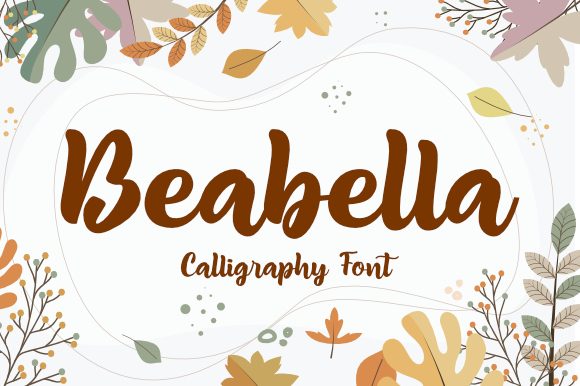
Beabella: A Handwritten Script Font for Web Designers
Introducing Beabella for Digital Projects
As a web designer constantly curating fonts for digital interfaces, finding the right script handwritten font can be transformative. Beabella presents itself as a sweet, all-round, and flexible option that brings a warm, romantic, and jolly personality directly into your layouts. This isn't just another decorative typeface; it's a tool designed to turn your project ideas into cohesive works of art. The immediate impression Beabella creates is one of crafted authenticity, a quality increasingly sought after for brand-focused web experiences.
Beabella for Web Design and Visual Hierarchy
In the context of web design, Beabella excels at establishing clear visual hierarchy. Its handwritten script style naturally draws the eye, making it an ideal candidate for hero titles, key section headings, and prominent call-to-action phrases. When you deploy this fonts for a landing page or app screen, its organic flow creates focal points that guide the user's scanning behavior effortlessly. For a SaaS landing page, using Beabella for the main value proposition headline immediately sets a friendly, human tone, distinguishing it from the colder aesthetics of purely geometric sans-serif fonts.
Using Beabella for Brand Tone and Online Identity
Consistency in online identity is paramount, and a font like Beabella can become the cornerstone of that consistency. Its warm and romantic character is perfectly suited for brands in niches like lifestyle coaching, boutique e-commerce, creative portfolios, or wedding services. Implementing Beabella across your website headers, content section titles, and even subtly within logo text ensures a unified brand voice. This script handwritten font communicates care and personality, fostering brand trust and a sense of professionalism that feels genuine rather than corporate.
Beabella for Conversion-Focused Layouts
Conversion hinges on emotion and clarity. Beabella’s jolly and approachable style can lower psychological barriers on sales pages, course enrollment screens, or subscription forms. Consider using this font for the primary button text on a high-converting landing page, or for the headline on a pricing table section. The friendly curvature of the letters makes directives feel more like invitations. For an online store, Beabella applied to banner headlines announcing a sale or new collection can create excitement without appearing aggressive.
Practical Applications of Beabella in Digital Products
The flexibility described in the Beabella product details translates to wide usability across digital mediums.
- Website Headers & Hero Sections: Use for the main title to establish an immediate emotional connection.
- Landing Pages: Apply to benefit statements and key testimonials to enhance perceived value.
- Online Shop Banners: Ideal for promotional messages and category titles.
- Blog Graphics & Content Sections: Perfect for post titles and pull-quotes to break up long-form content visually.
- Digital Ads & Social Media Assets: Its handwritten charm stands out in crowded feed environments.
- Portfolio & Course Pages: Elevates project names and module titles, suggesting a hands-on, personal approach.
Readability and Responsive Design with Beabella
While a script font, Beabella’s described all-round nature suggests careful design for digital readability. For mobile screens, reserve its use primarily for larger headings and avoid long paragraphs. Ensure ample contrast when overlaying on images—white Beabella text on a dark background often works beautifully. In responsive layouts, test its legibility at common breakpoints; it may perform best at sizes above 28px for mobile. For small button text, consider using a simpler sans-serif for the body, letting Beabella handle the button label itself if the character count is low.
Font Pairing Strategies for Beabella
A successful web typography system relies on pairing. Beabella, as a decorative display font, needs a robust supporting cast. Pair it with a clean, neutral sans-serif (like Inter or Open Sans) for all body copy, UI elements, and lengthy descriptions. This creates a clear hierarchy: personality from the script, clarity from the sans. For a more editorial digital identity, a classic serif font for body text can also complement Beabella’s warmth. The key is to let the handwritten script font shine in its designated spotlight roles without forcing it to perform tasks it's not optimized for.
Technical Considerations for Web Implementation
Before integrating Beabella into a client project or your own online store, verify its technical specs. Confirm it includes standard webfont formats (like WOFF2) for optimal browser performance and loading speed. Check for multilingual support if your project targets a global audience. Investigate the licensing terms to ensure it covers commercial use for websites, digital templates, and brand assets—this is a critical step for professional designers. The presence of stylistic alternates can also add valuable flexibility for creating unique logotypes or customizing certain words within a headline.
Crafting Emotional User Experiences with Beabella
Ultimately, the goal of modern web design is to craft experiences, not just pages. Beabella is a font that directly contributes to that emotional layer. Its sweet and romantic curves can soften a transactional interface, making a checkout process feel more personal. Its jolly bounce can add energy to a blog's content section, increasing engagement. By strategically placing this script handwritten font in your layout's rhythm—from the initial hero section to the final thank-you screen—you build a narrative that users feel, not just read. This is the power of choosing a typeface like Beabella: it transforms functional layouts into memorable, artful digital encounters.